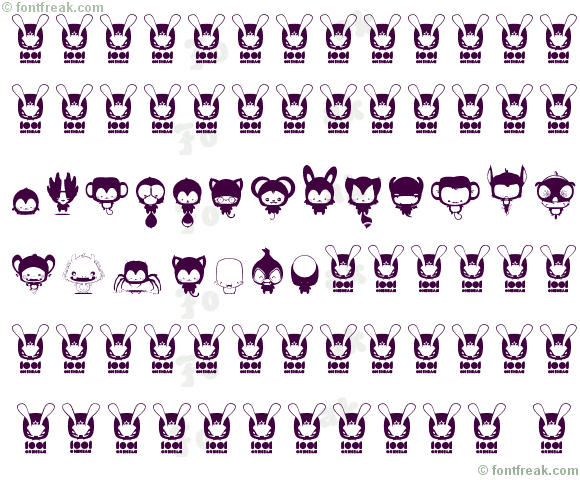
animal_kai
The animal_kai font by Maelle.K is a unique decorative typeface that captivates with its playful and whimsical design. As a display font, it showcases a delightful blend of cartoonish elements, making it ideal for projects that require an imaginative touch. The font features bold, rounded strokes that provide a friendly and approachable aesthetic, while the character design incorporates various animal motifs, adding a layer of charm and creativity. The spacing between characters is thoughtfully designed, ensuring legibility while maintaining a fun appearance.
This font is perfect for a variety of use cases. It shines in children’s book titles, where its playful nature can engage young readers. Additionally, it is an excellent choice for branding materials aimed at pet shops or animal-themed products, as it resonates with the target audience effectively. For event promotions, such as zoo or animal rescue fundraisers, the animal_kai font will capture attention and convey a sense of fun and excitement. It also works well for social media graphics, allowing content creators to communicate a light-hearted message that stands out in crowded feeds.
What sets the animal_kai font apart is its ability to combine artistry with functionality. It is not just a typeface; it is a creative tool that invites users to explore their imagination. With the animal_kai font free download, you can easily incorporate this charming font into your projects, ensuring that your designs are not only visually appealing but also memorable.